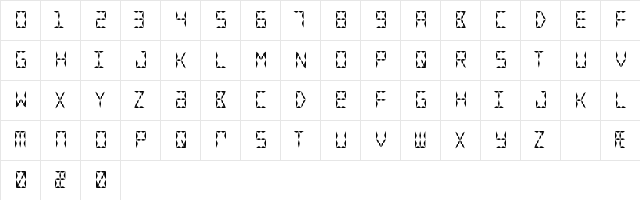
Crystal Watch Regular Font Preview
Crystal Watch Regular
Design Context for Crystal Watch Typeface
Crystal Watch takes a measured approach to typography — its balanced proportions and neutral character make it a reliable workhorse for both digital and print work.
Pro Tip: Pair Crystal Watch with a font of contrasting weight or personality to build a more expressive typographic hierarchy.